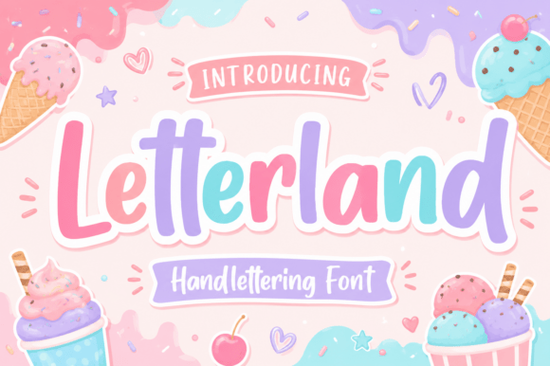
If you've been searching for a Letterland Font that feels playful, bold, and genuinely fun, this one checks all the boxes. It's a handwritten display font with thick rounded strokes and slightly irregular letter shapes that give it a warm, approachable personality. Whether you're designing for kids, crafting stickers, or building a cheerful brand identity, this font brings an energetic and youthful tone without sacrificing readability.
What makes Letterland different from other handwritten fonts?
There are thousands of handwritten fonts out there, so what stands out about this one? The answer is in the details. Letterland has a whimsical, friendly character that doesn't look overly polished or generic. The slightly uneven letter shapes feel hand-drawn rather than digitally manufactured. At the same time, the thick, rounded strokes keep everything clear and easy to read even at smaller sizes.
This balance between charm and legibility is what makes it work across so many different uses. It doesn't try to look elegant or minimal. Instead, it leans into a fun, cheerful energy that naturally fits projects aimed at children, families, or anyone who wants a lighthearted visual feel.
Some fonts in this playful category lean too far into cartoon territory and lose professionalism. Letterland avoids that. It stays friendly without becoming silly. If you've used fonts like Happy Rainbow Family before, you'll notice a similar warmth though Letterland has its own distinct personality with bolder, more rounded shapes.
What projects is this font best suited for?
Letterland works well across a wide range of creative projects. Here are some of the most popular uses:
- Children's books and book covers the playful letterforms catch a young reader's eye immediately
- School supplies and classroom materials headers, labels, worksheets, and bulletin boards all benefit from a friendly, readable font
- Stickers and planner accessories the bold weight shows up well even on small surfaces
- Packaging and product labels especially for kids' products, snack brands, or handmade goods
- Cute branding and logos ideal for bakeries, toy shops, tutoring services, or children's clothing lines
- Print-on-demand designs t-shirts, mugs, tote bags, and posters with a lighthearted vibe
- Greeting cards and invitations birthday party invites, baby shower cards, and thank-you notes
- Craft projects scrapbooking, DIY signs, and Cricut or Silhouette projects
If you regularly work on kids' content or family-friendly designs, having a go-to bold handwritten font like this in your toolkit saves a lot of time. Pair it with something softer like Bee Kind Duo for a layered, dynamic look.
How does it compare to other fonts on Creative Fabrica?
Creative Fabrica offers a large library of handwritten and display fonts, so it's worth knowing where Letterland fits. Compared to something like the Front Picture script font, which leans more elegant and flowing, Letterland is bolder and more casual. It's less about sophistication and more about energy.
If you prefer a relaxed, laid-back handwritten style, Lazydog is a great alternative. But if your project needs something louder and more eye-catching, Letterland's thick strokes and playful shapes make it the stronger choice.
For those who love decorative script fonts with a different kind of flair, this barbie-style script font offers a completely different aesthetic. Letterland, on the other hand, is all about that approachable, kid-friendly warmth.
Is Letterland readable at small sizes?
Yes and this is one of its strongest qualities. Many handwritten display fonts sacrifice legibility for style. Letterland manages to keep both. The rounded, thick strokes mean letters stay distinct even when used at smaller sizes on stickers, labels, or product tags.
That said, it's still a display font, so it works best for headlines, titles, and short text blocks. For longer paragraphs or body copy, you'll want to pair it with a clean sans-serif or simple serif font.
Quick tips for getting the most out of Letterland
- Use it for headlines and short phrases where its personality can shine
- Pair it with a simple, clean font for body text to avoid visual clutter
- Try it in all caps for a bolder, more impactful look on posters and t-shirts
- Experiment with color it looks great in bright, warm tones that match its cheerful style
- Test it at the actual size your audience will see it before finalizing a design
Letterland is the kind of font that earns a permanent spot in your collection especially if you design for kids, families, or anything that benefits from a warm, playful touch.